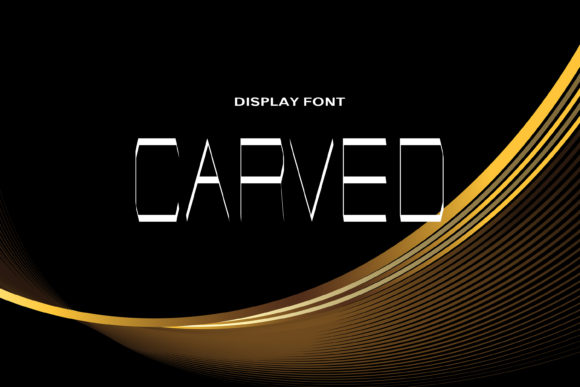
Welcome to the realm of Carved Font, an extraordinary display font family that's poised to ignite your creativity and elevate your designs to new heights. Its sleek, geometrically shaped letters exude a modern, cutting-edge aesthetic, while the thin strokes add a touch of delicate elegance, making it the perfect choice for forward-thinking individuals who dare to stand out from the crowd.
Carved Font is the brainchild of DmDesignsStoreArt, a visionary font foundry renowned for creating masterpieces that push the boundaries of typography. With its unique aesthetic, this font is a true game-changer, designed to breathe life into your designs and leave an unforgettable impression on your audience.
Immerse yourself in the world of Carved Font and discover a realm where creativity knows no bounds. This modern font is a symphony of straight lines and sharp angles, meticulously crafted to evoke a sense of sophistication and innovation. Whether you're a seasoned designer or a budding enthusiast, Carved Font will unleash your imagination and help you create designs that resonate with your audience.
Embrace the power of Carved Font and unleash your creative potential. With its distinctive character, this font will elevate your designs to new heights, leaving a lasting impression that will keep your audience captivated. So, embark on this typographic journey and let Carved Font guide you towards design brilliance.